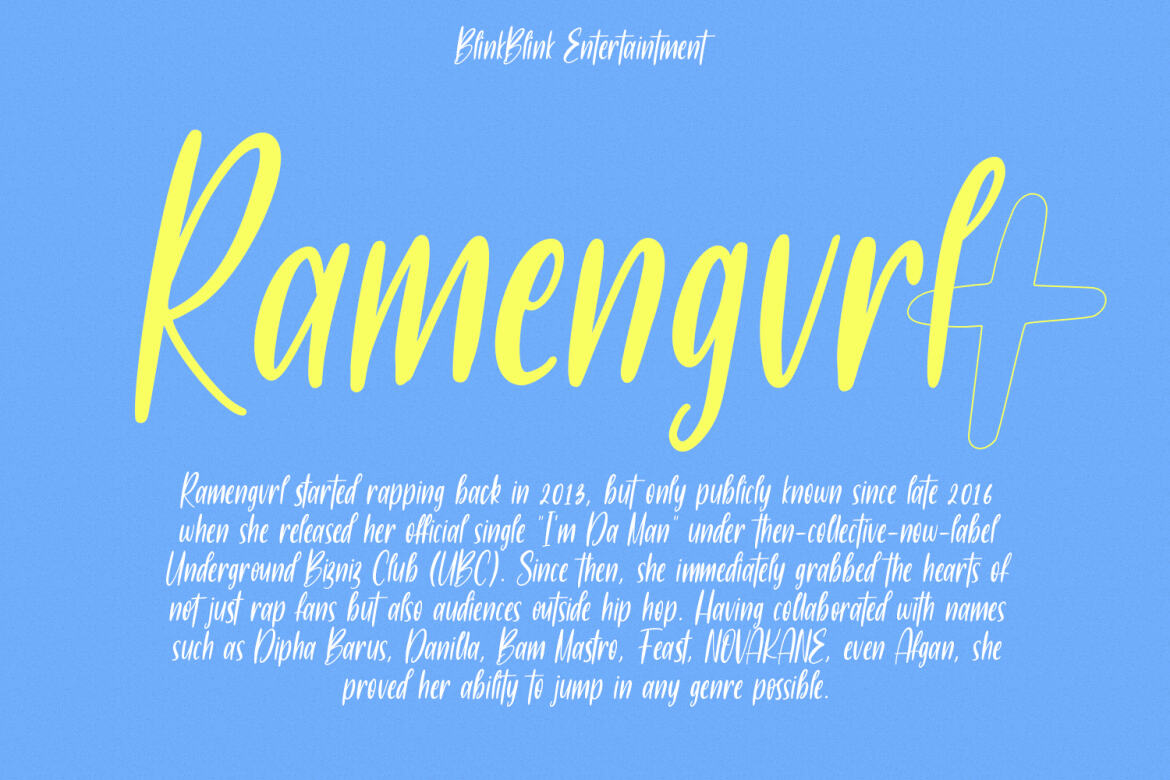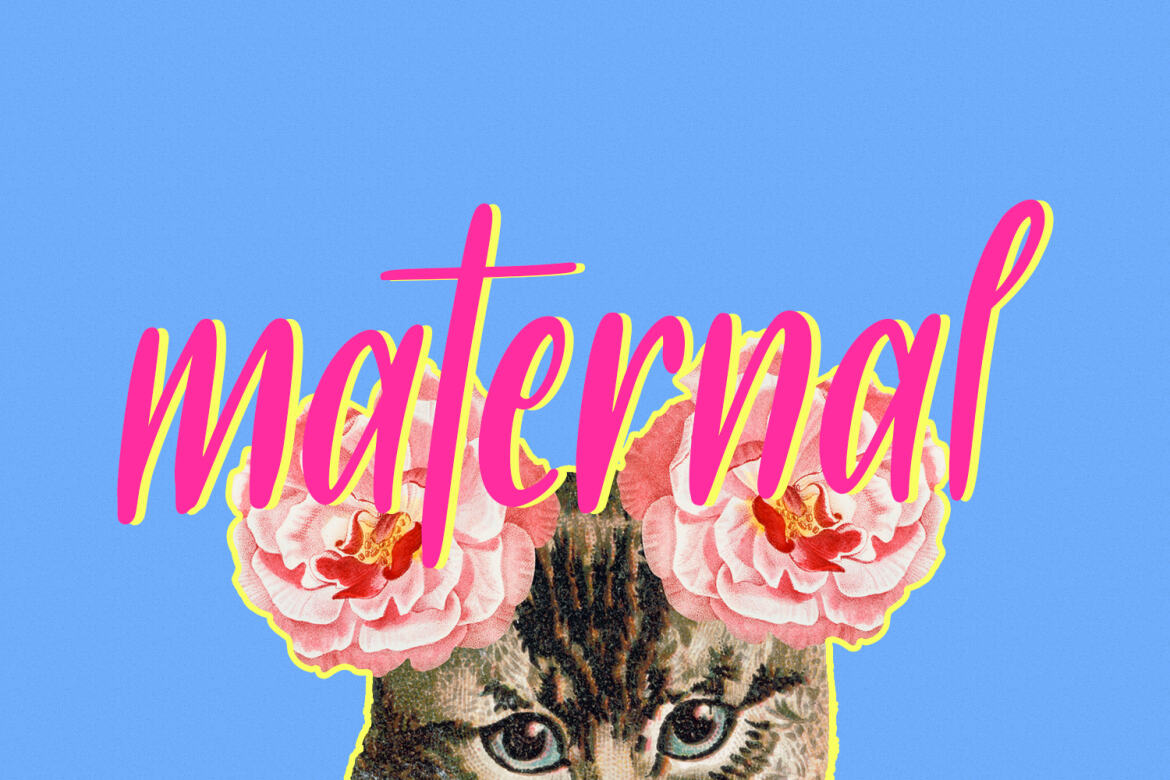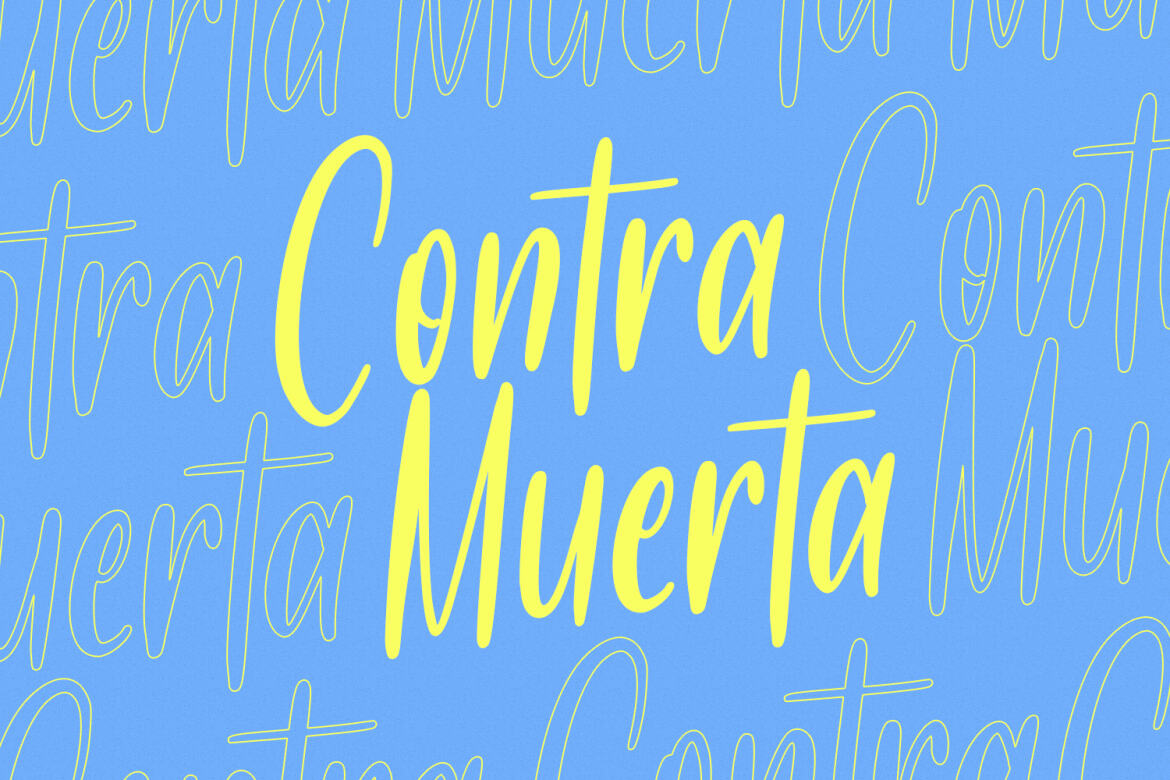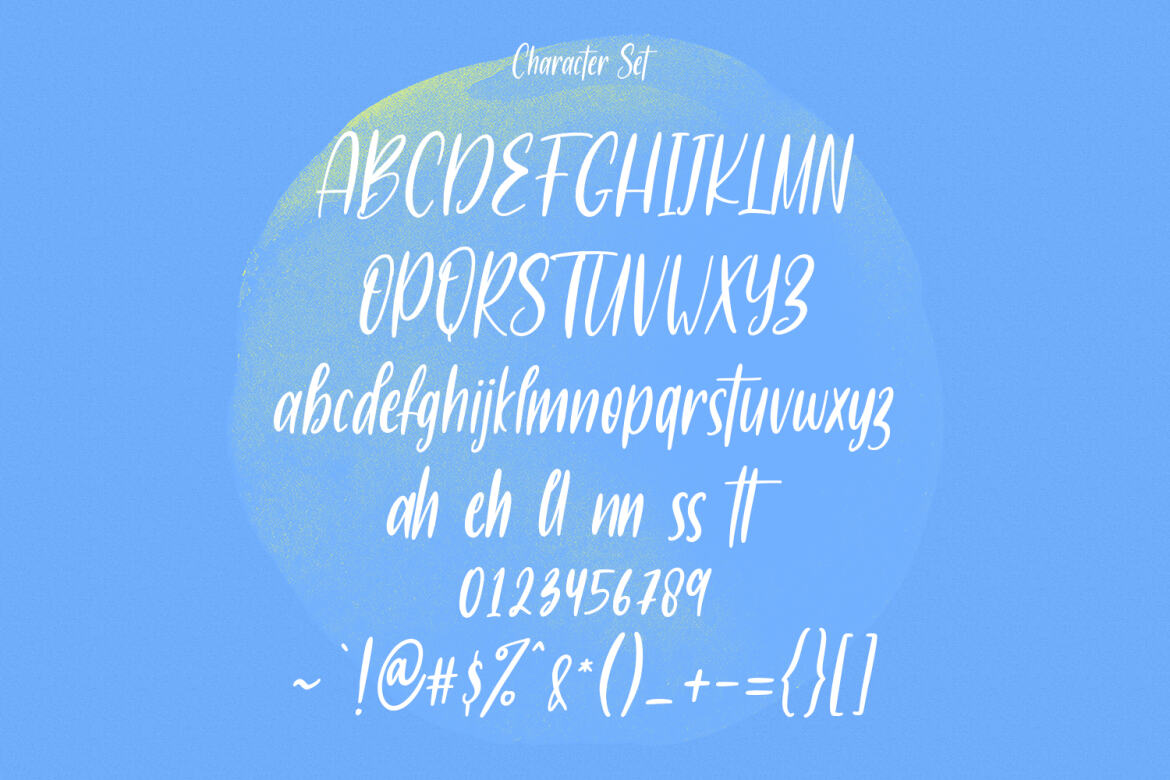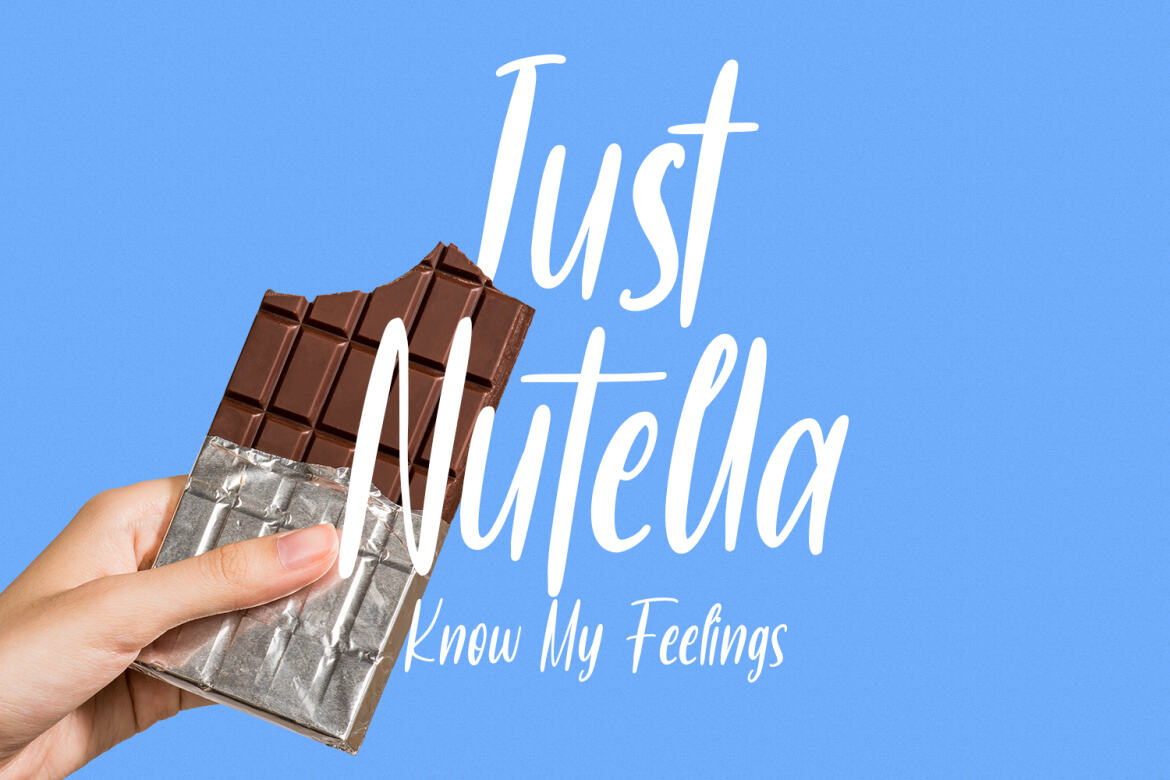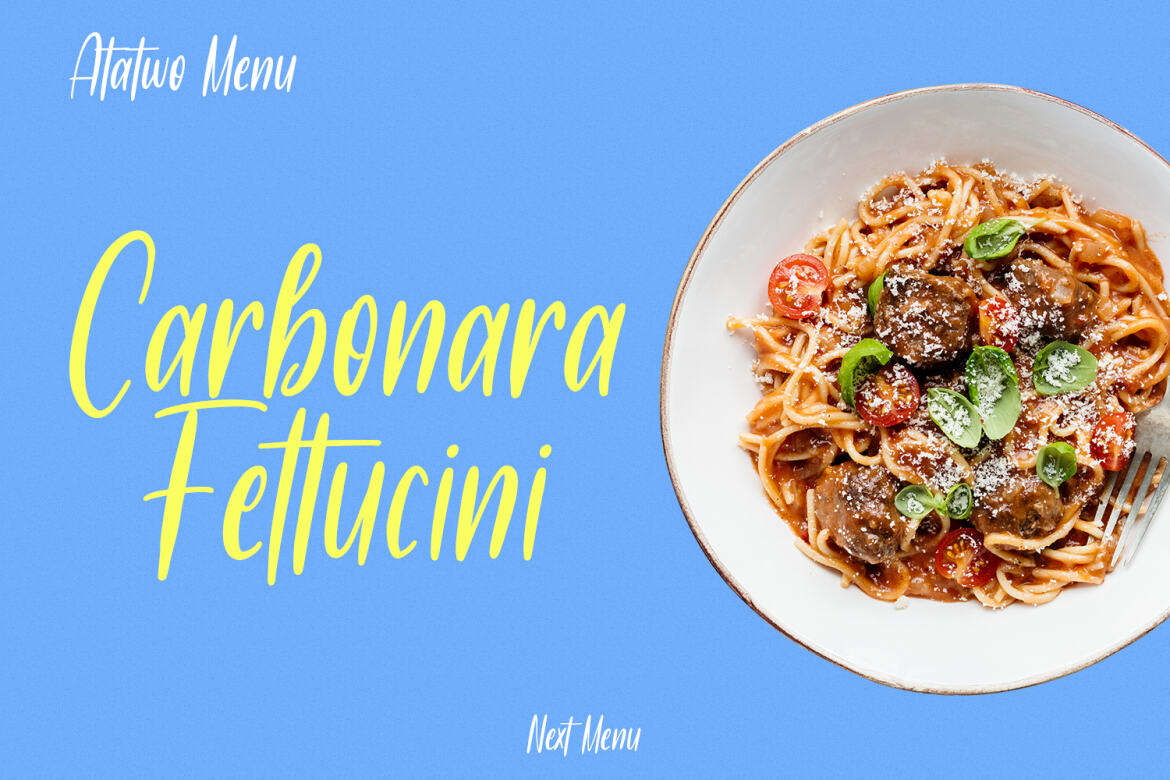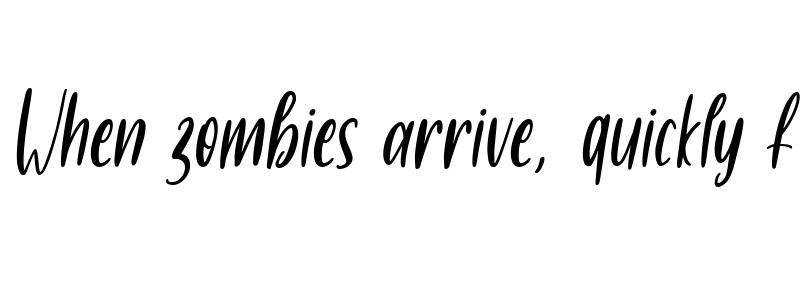
Nuttelos
Nuttelos is a fancy handwritten script font. With regular stroke, slanted and Unique Upper and lower characters with a bit of ligatures. To give you an extra creative work. Nuttelos font support multilingual more than 100+ language. This font is good for logo design, Social media, Movie Titles, Books Titles, a short text even a long text letter and good for your secondary text font with sans or serif. Make a stunning work with Nuttelos font.